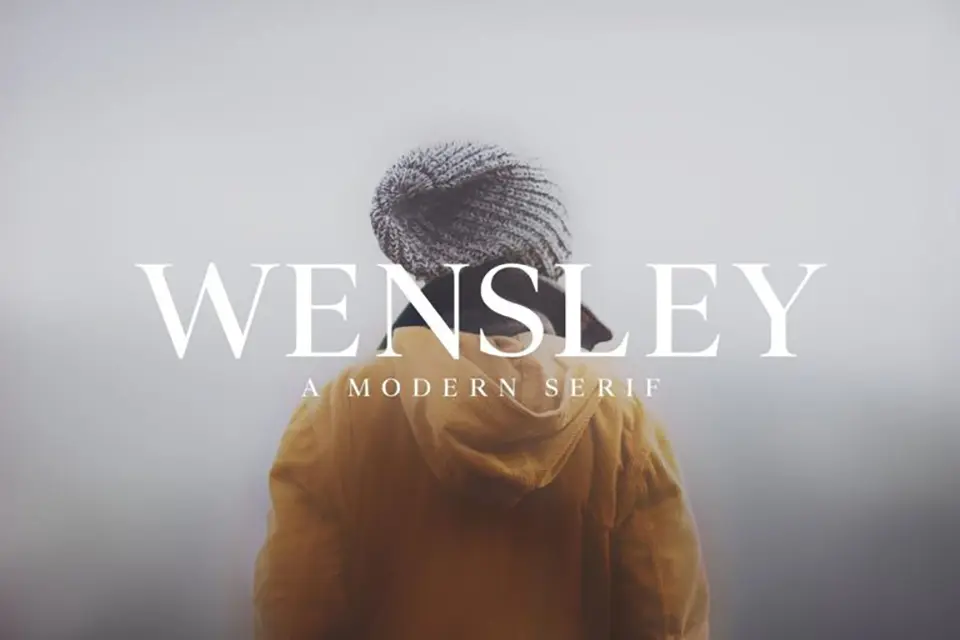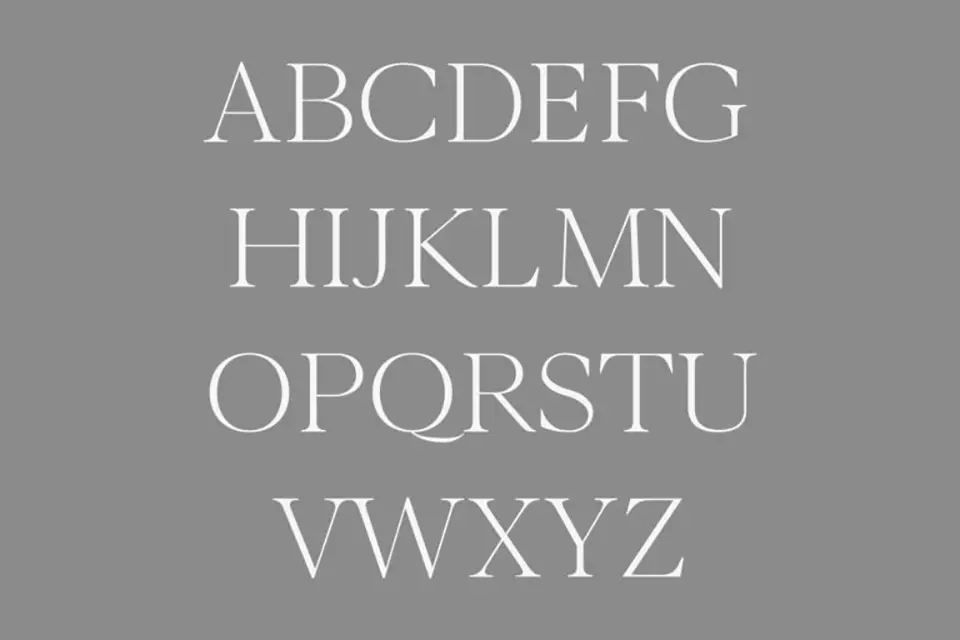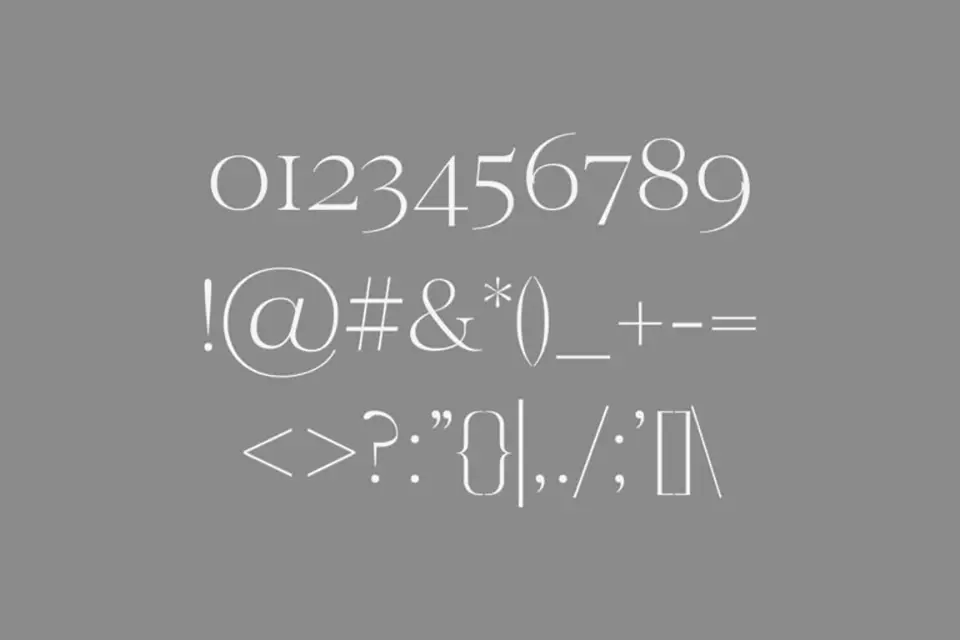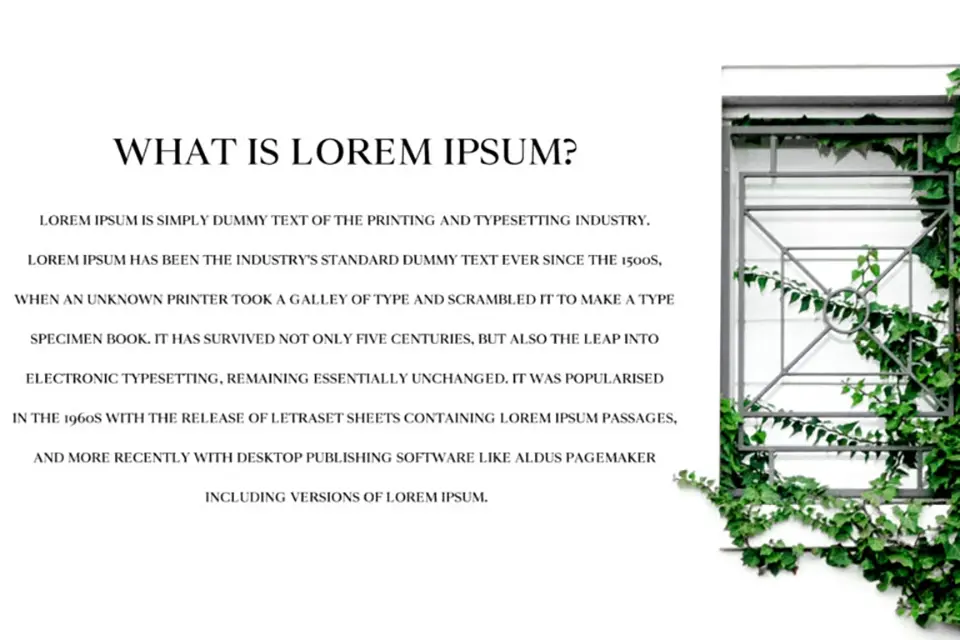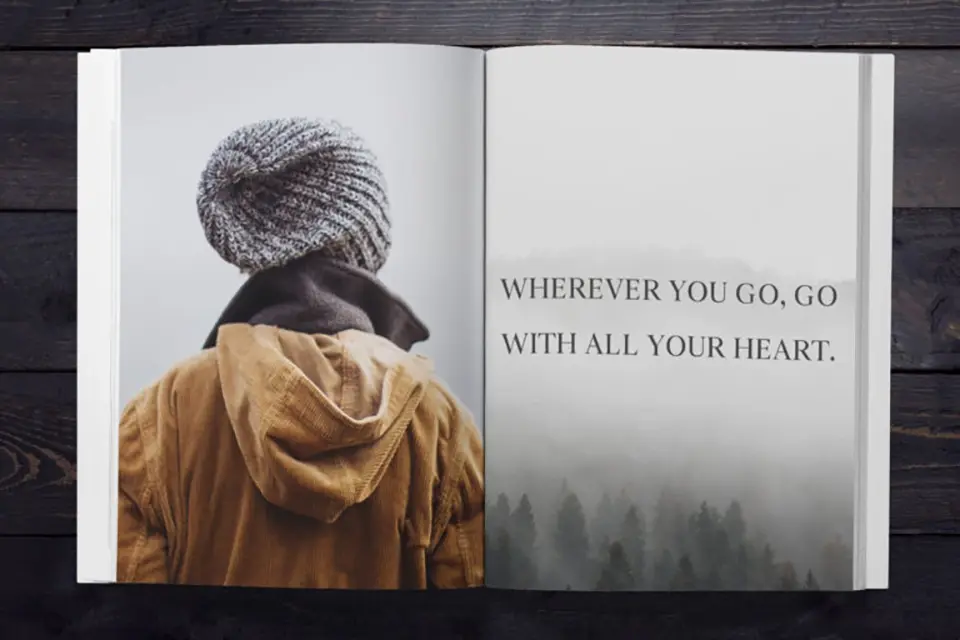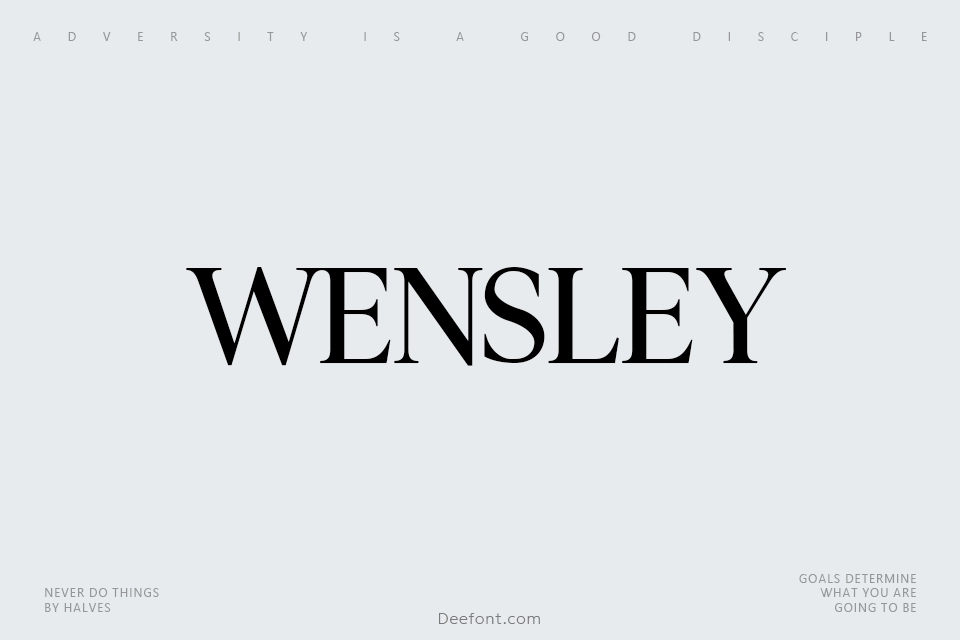
Wensley Font
Wensley is a sophisticated modern serif typeface that brings elegance and refinement to any design project. This luxurious font features clean lines and traditional serifs, making it ideal for headlines, titles, magazines, logos, presentations, posters, invitations, books, and branding. The typeface includes all basic glyphs with comprehensive non-English character support, perfect for multilingual designs. With its high-end aesthetic and versatile style, Wensley pairs beautifully with script and handwriting fonts to balance modern and classic elements, ensuring your creative projects stand out with professional sophistication.